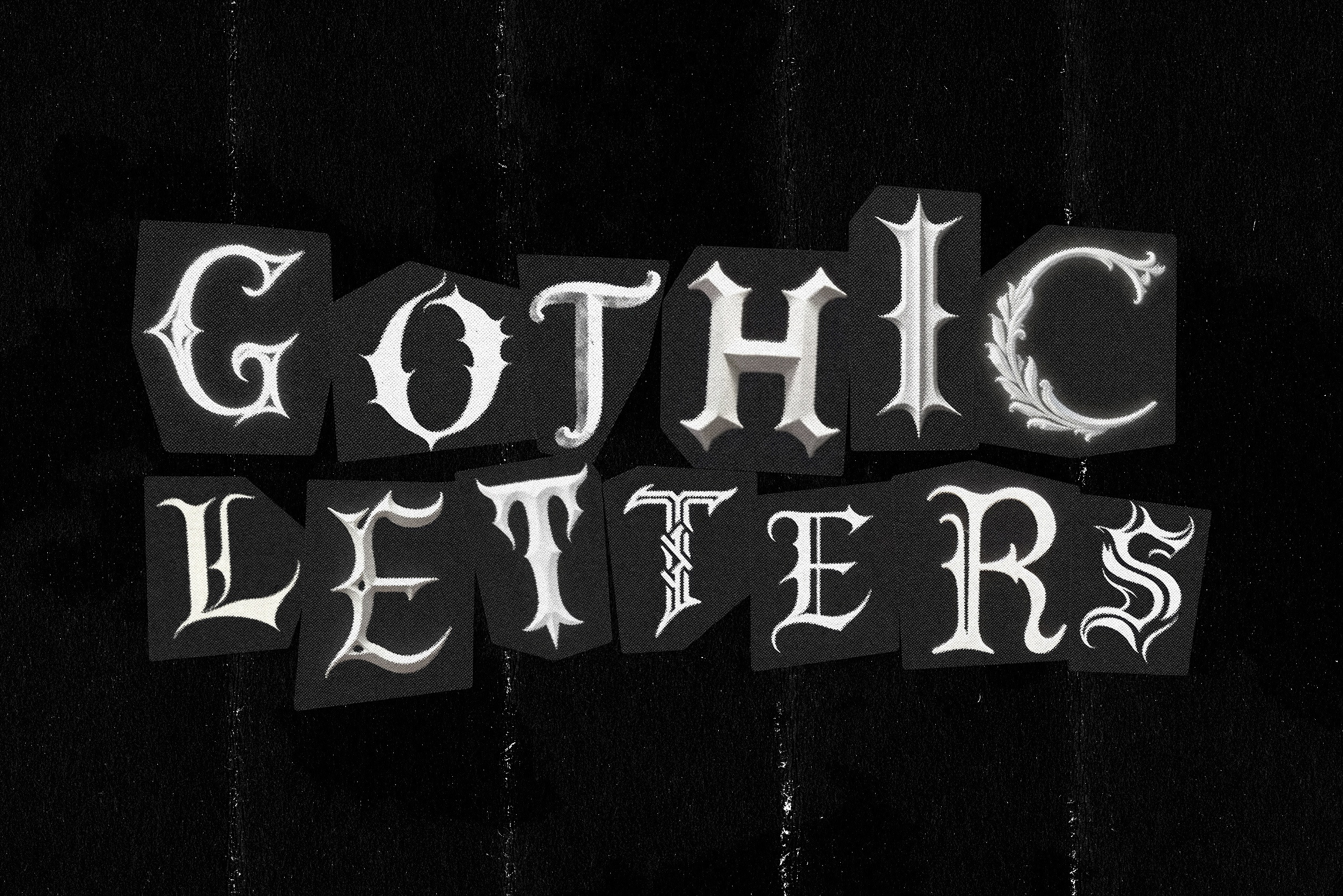
Gothic Letters, 500+ pcs PNG FONT
Gothic Letters, 500+ PNG ELEMENTS
Turn up the drama with Gothic Letters! This set of 500+ high-res PNG ransom-style elements—letters, numbers, and special characters—lets you create bold, mysterious, or rebellious designs with ease. Perfect for posters, album covers, and edgy graphics. Ready to make a statement?